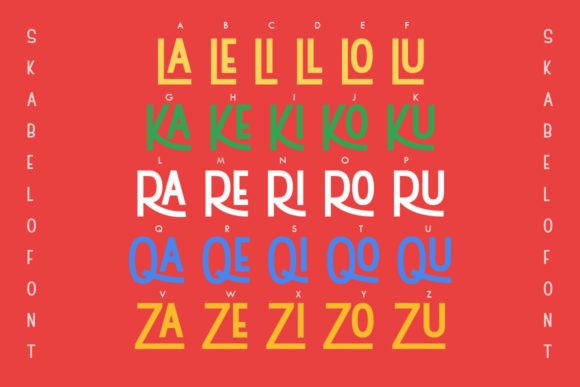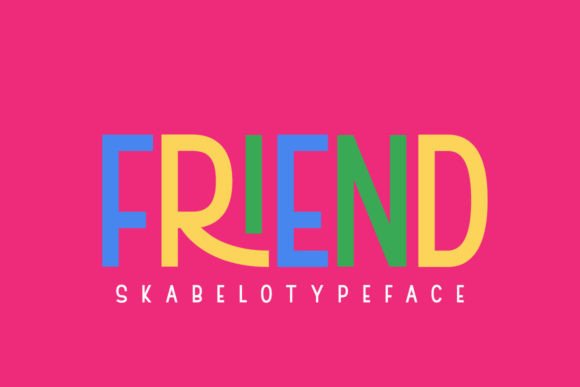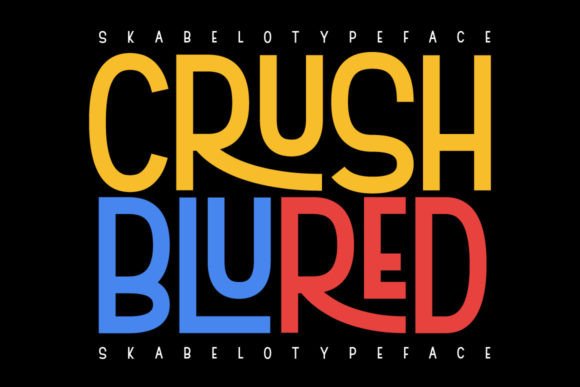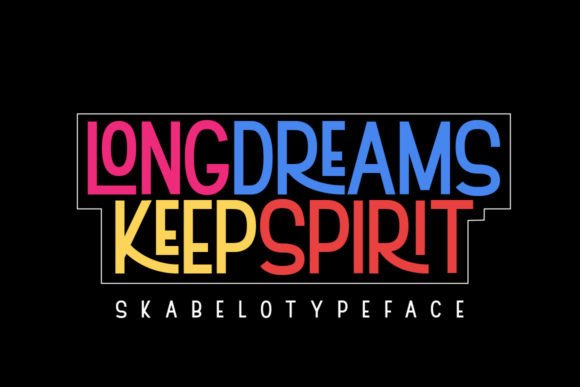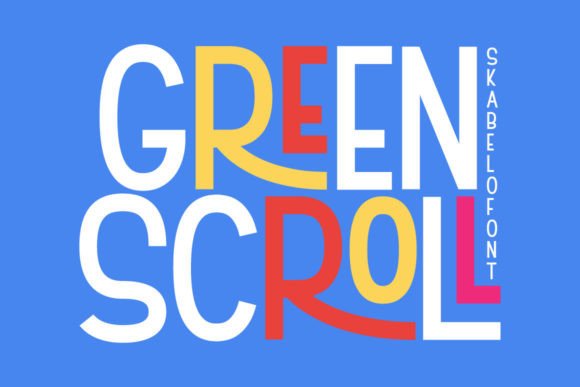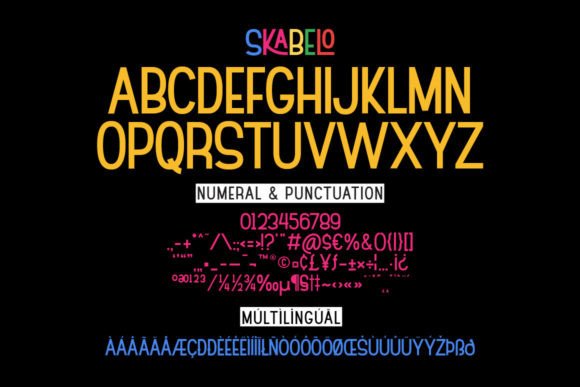
Introduction to Skabelo Font
Skabelo is a display font with a simple and playful style.
This font offers a collection of 26 unique ligatures, enabling creative and visually engaging typographic compositions Its tall character design facilitates adjustments and is enjoyable to explore various shapes and layouts.
Key Features of Skabelo Font